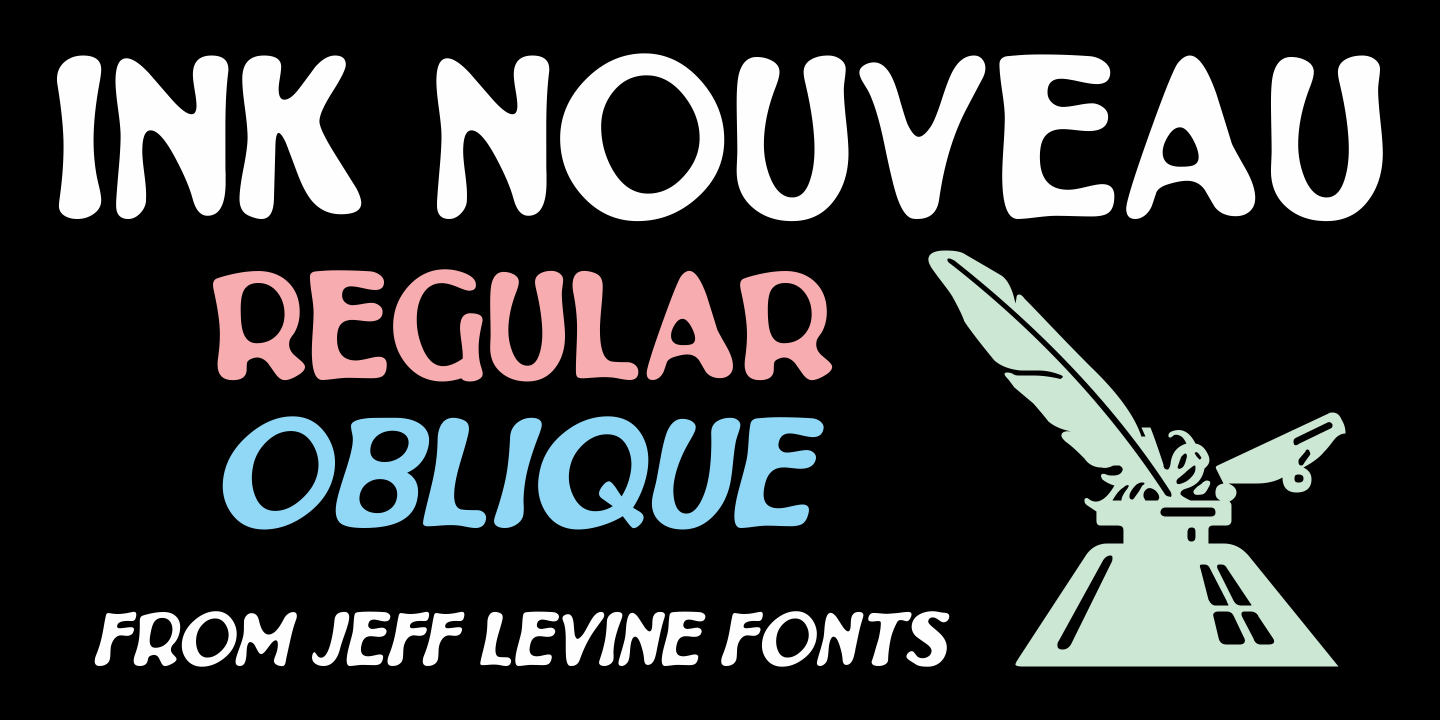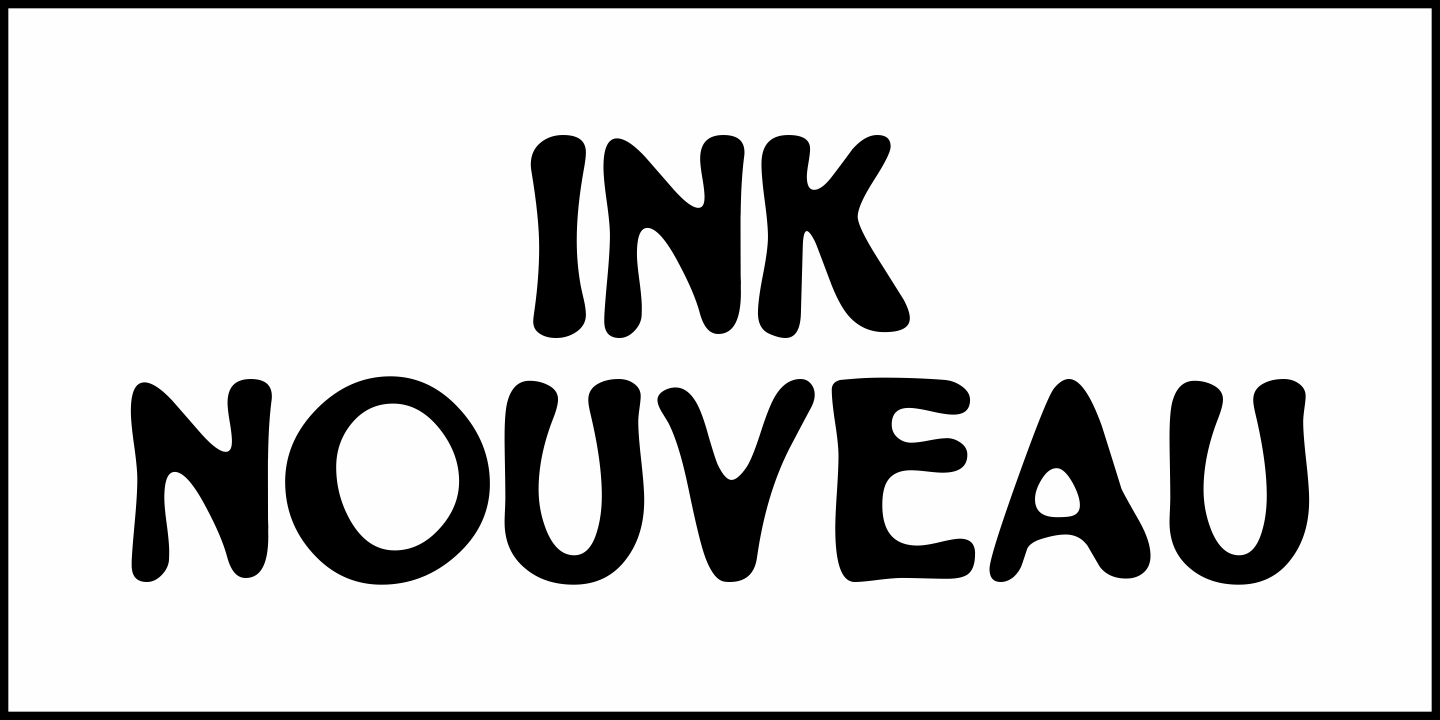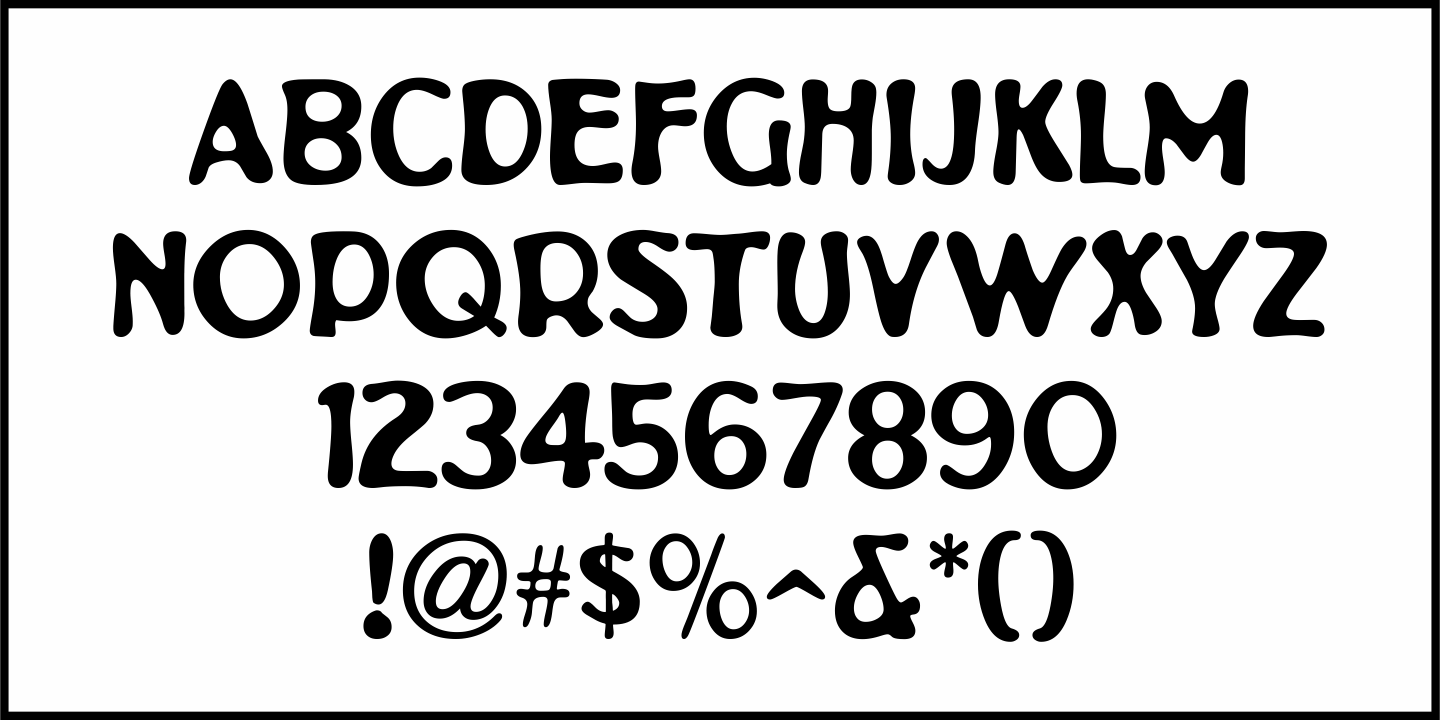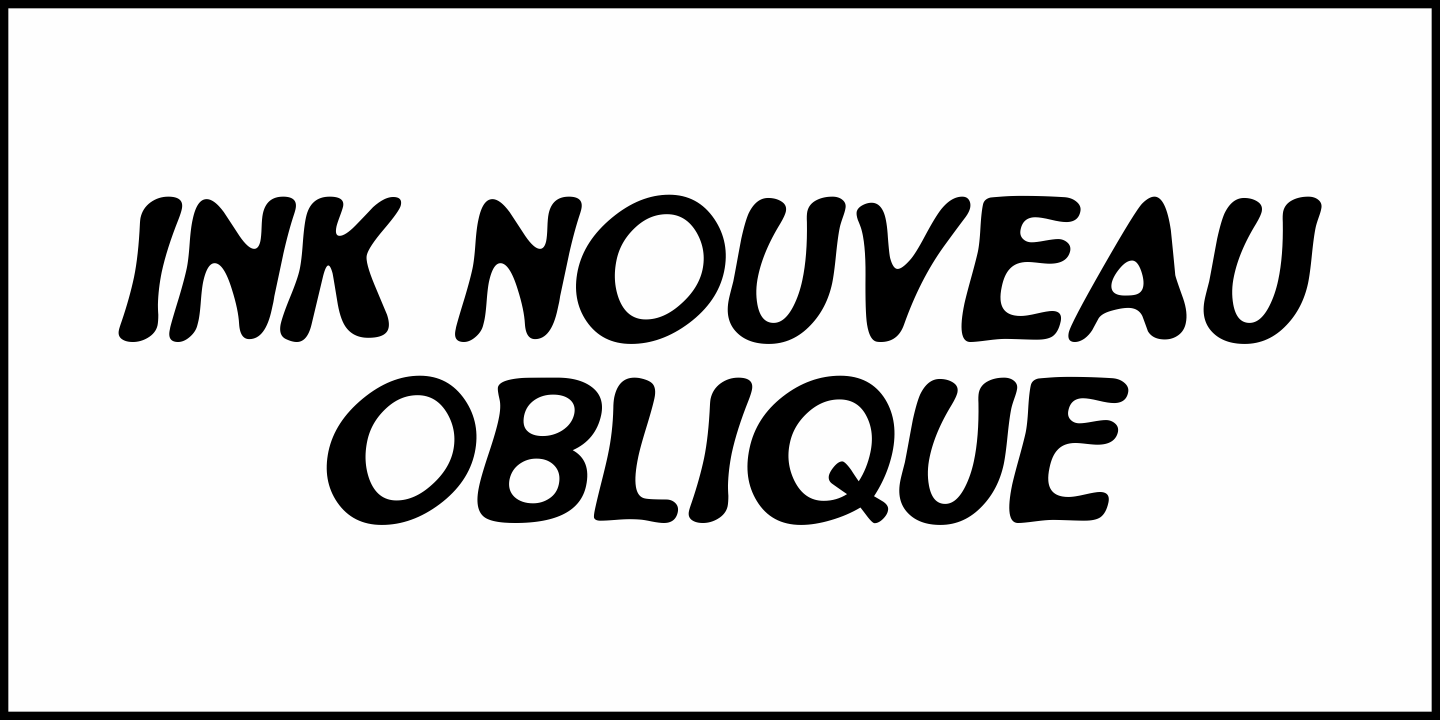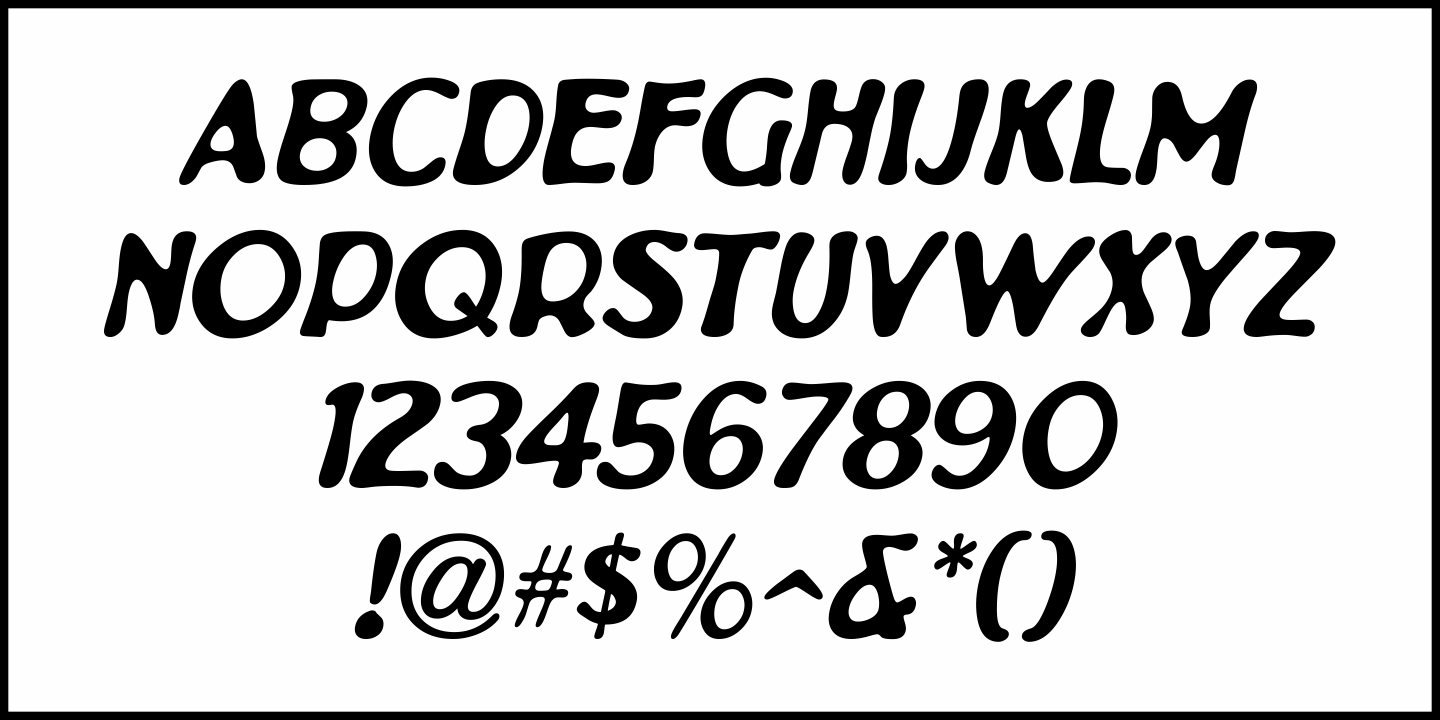
Ink Nouveau
Ink Nouveau JNL is loosely based on the hand lettered title from a lobby card for the 1927 film “The Taxi Dancer” and is available in both regular and oblique versions.
The design emulates a hastily or sloppily drawn Art Nouveau display font.